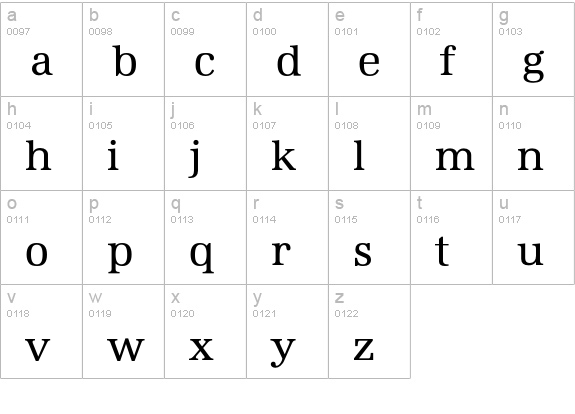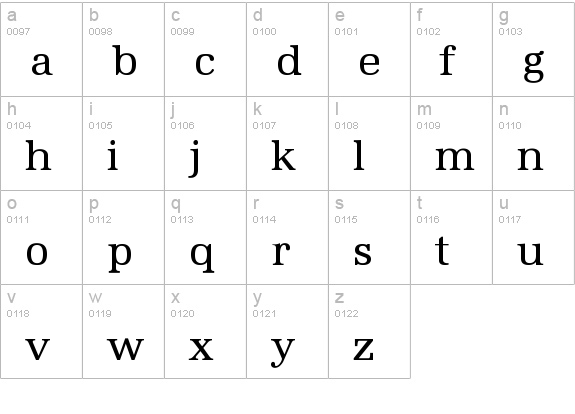
EdisonEF-Book Font Details
EdisonEF-Book is a comfortable, highly readable variant in the EdisonEF typeface family \xE2\x80\x94 well suited to long-form body text, articles, and editorial content.
Introducing EdisonEF-Book, a captivating and versatile font that will bring a touch of elegance and sophistication to your designs. This exquisitely crafted typeface is perfect for a wide range of projects, from branding and logo design to editorial layouts and web graphics. With its clean lines and balanced proportions, EdisonEF-Book exudes a sense of modernity and professionalism. Its carefully designed letterforms ensure legibility even at smaller sizes, making it ideal for both print and digital applications. But what truly sets EdisonEF-Book apart is its availability as a free download at FontsMarket.com. Yes, you read that right - this remarkable font is freely accessible, allowing you to enhance your creative endeavors without breaking the bank. FontsMarket.com provides a convenient and user-friendly platform for font enthusiasts, and with just a few clicks, you can add EdisonEF-Book to your collection. Whether you're a designer looking to elevate your projects or a typographer seeking a reliable and visually pleasing font, EdisonEF-Book is the answer. Its extensive character set includes a variety of ligatures, alternate glyphs, and stylistic variations, granting you the freedom to experiment and create unique typographic compositions. So, why wait? Unleash your creativity and make a lasting impression with the captivating EdisonEF-Book font. Download it freely at FontsMarket.com and embark on a transformative typographic journey that will leave a lasting impact on your audience.